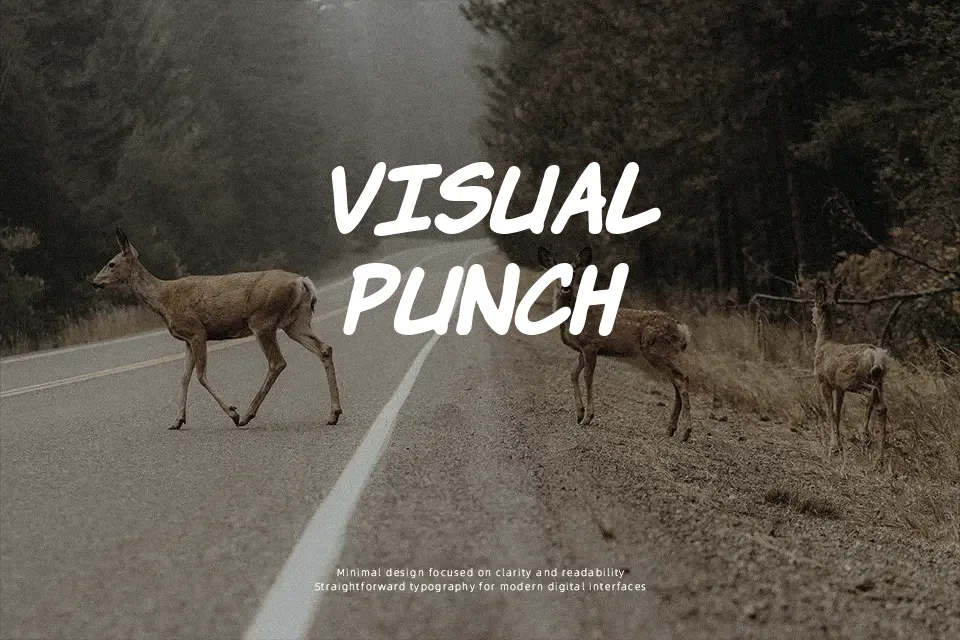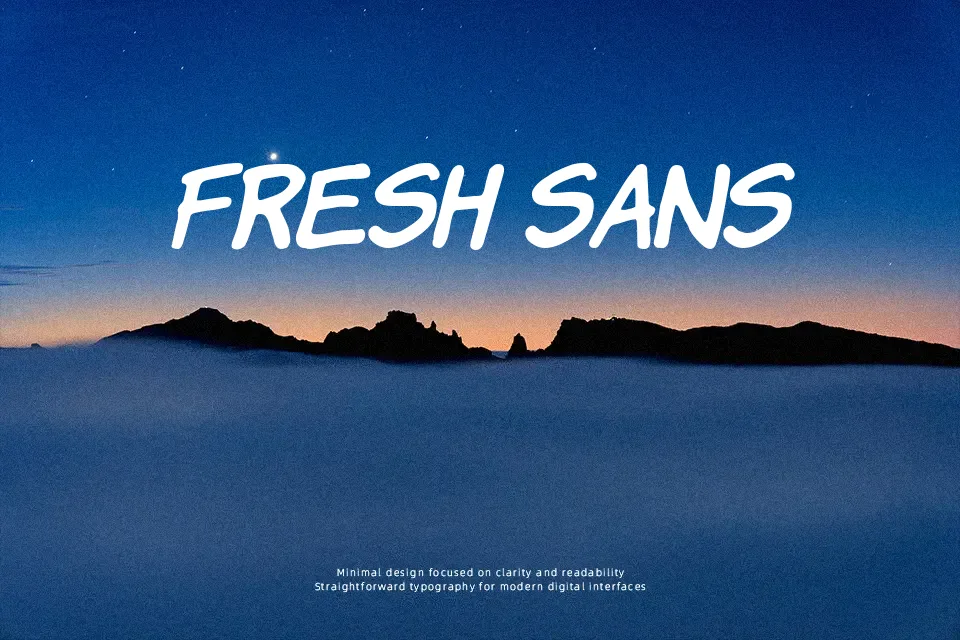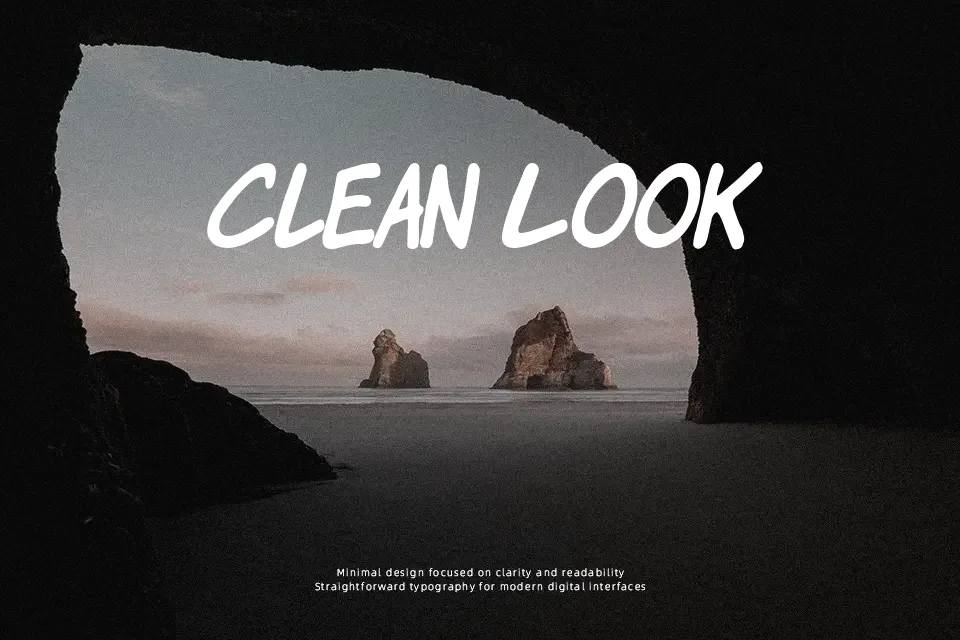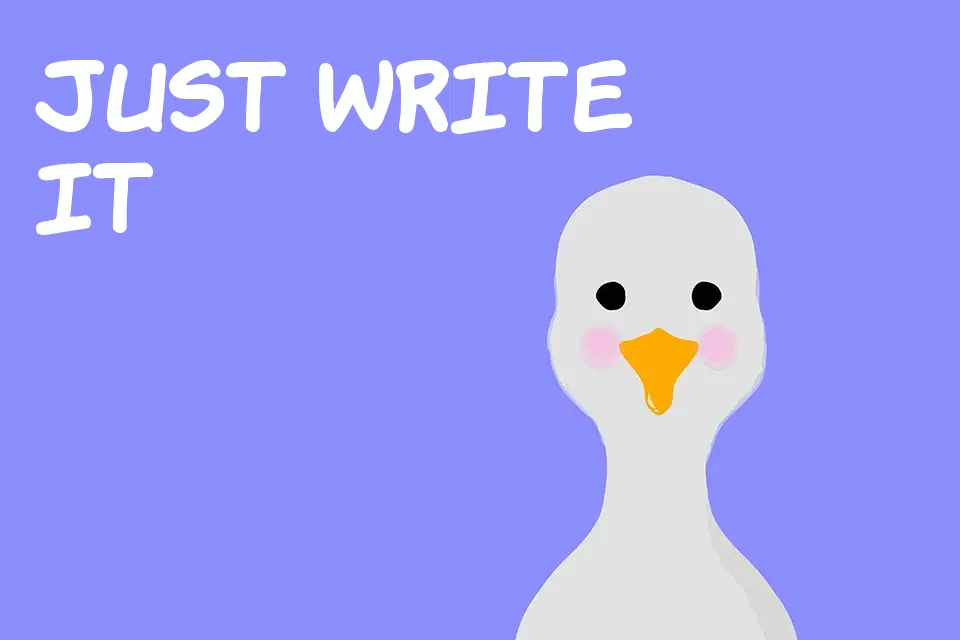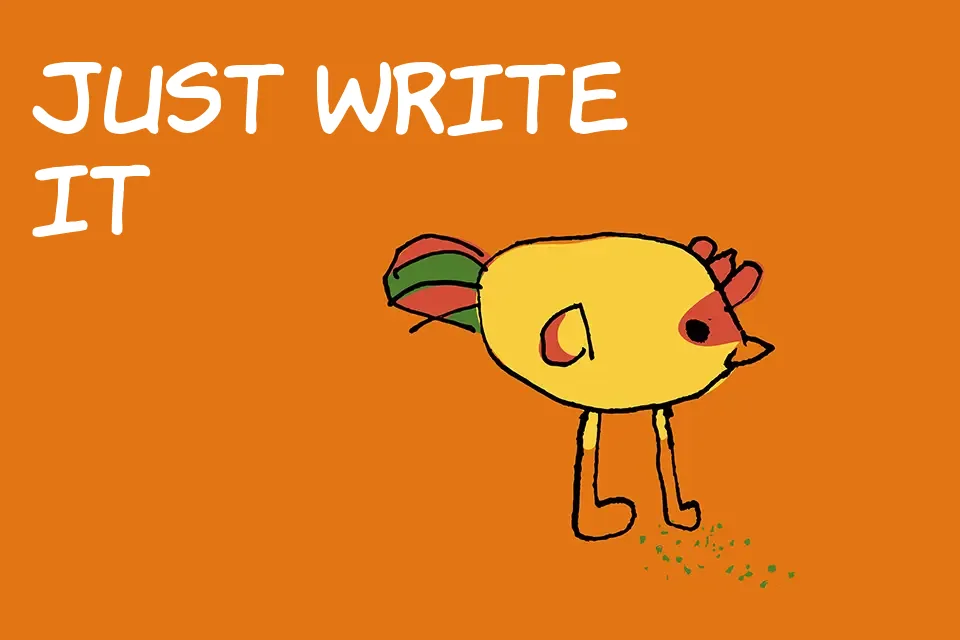
Komika Hands Font
Loose strokes, irregular letter heights, and slightly exaggerated curves give Komika Hands a natural, hand-drawn comic feel. The spacing is relaxed rather than precise, which helps mimic real handwriting seen in comic speech bubbles or doodle-style graphics. It reads clearly at medium sizes, especially in short lines or dialogue text. However, the uneven rhythm can feel messy in long paragraphs or structured layouts. It works best when you want a casual, expressive tone, but struggles in polished or highly professional contexts where consistency matters more than personality.
comic speech bubbles and panels
kids activity books or worksheets
playful poster headlines
corporate presentations
formal branding systems
Perfect for headline, kids, and poster, with a creative and comic style.